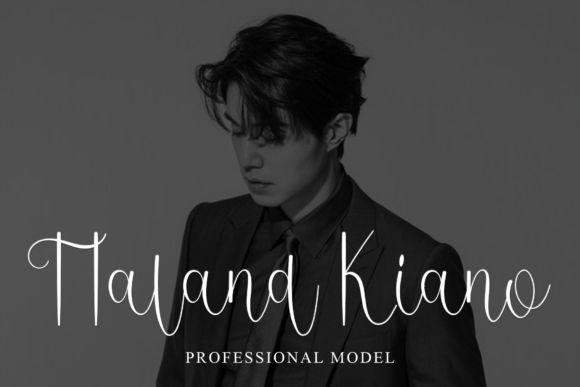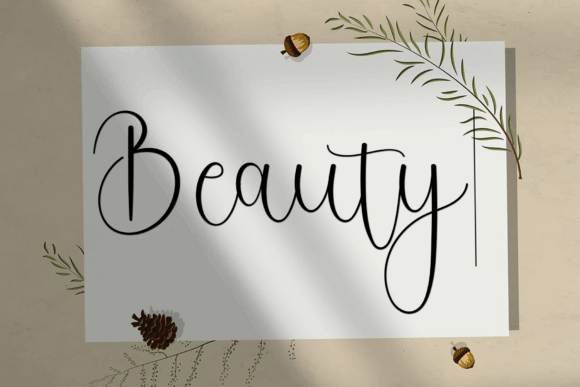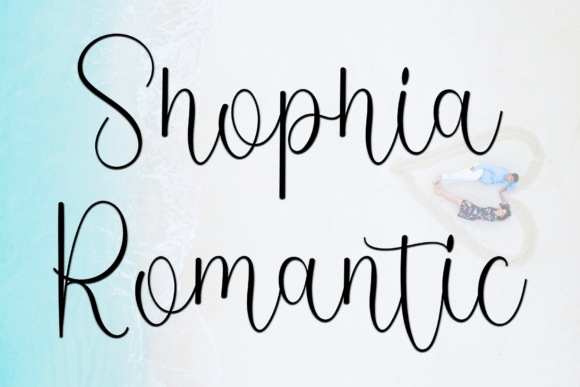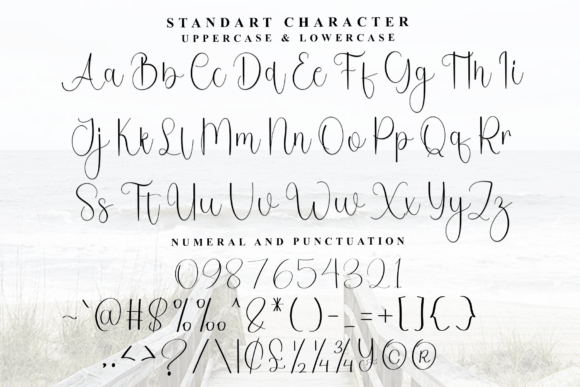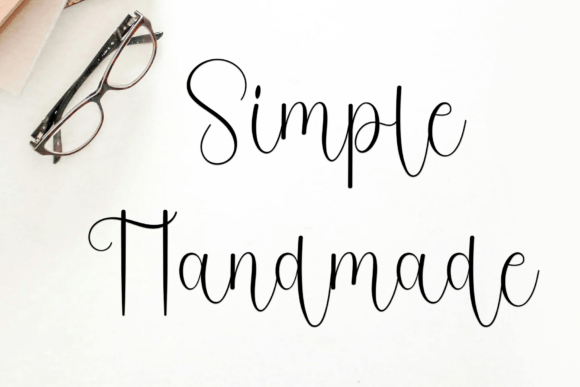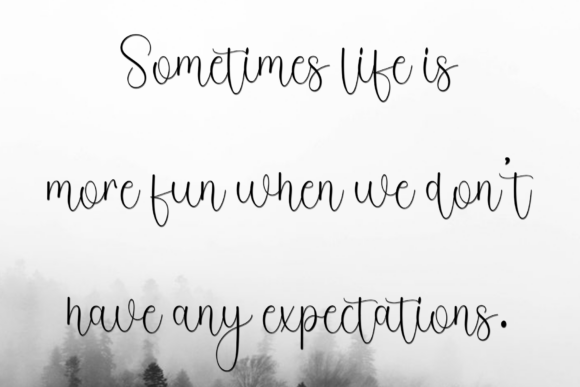
Unlock the Magic of Fantasy Birthday Font
As a designer, there’s no greater joy than bringing a creative vision to life. It’s that moment when you finally find the perfect font to match your idea – and it all comes together in perfect harmony. For those special occasions, you need a font that’s as unique as the celebration itself. That’s where the Fantasy Birthday Font comes in – a beautiful and eye-catching typeface that’s sure to make your designs stand out.
This charming font is designed to add a touch of whimsy and personality to your work, making it perfect for design projects, crafts, and other creative endeavors. With its soft, distinctive strokes, the Fantasy Birthday Font is versatile and meaningful, capable of enhancing a wide range of products and designs. Whether you’re a seasoned designer or just starting out, this natural font style is sure to become a valuable addition to your creative arsenal.
Fantasy Birthday Font Key Features
- Font Styles: This font includes a range of styles, including bold, regular, and italic, to suit various design needs.
- Unique Characteristics: Features intricate, fantasy-inspired designs with swashes and flourishes, adding a touch of magic to birthday messages and celebrations.
Review of Fantasy Birthday Font
I recently had the chance to work with the Fantasy Birthday Font, and I must say it’s a mixed bag.
- The font is perfect for creating a whimsical and magical atmosphere, which is great for birthday parties, especially for kids.
- The design is intricate and detailed, with beautiful flourishes and swashes that add a touch of elegance.
- The font is highly customizable, with a wide range of size and color options available.
- The font is quite ornate, which can make it difficult to read for some users, especially those with vision impairments.
- The design can be overwhelming if used excessively, so it’s best to use it sparingly to avoid visual clutter.
- The font may not be suitable for professional or formal applications, as it’s more geared towards casual and creative uses.
Overall, I think the Fantasy Birthday Font is a great choice for anyone looking to add a touch of magic to their designs. While it has some limitations, its unique design and customization options make it a valuable asset for any creative project.
Practical Application Guide: Fantasy Birthday Font
Experiment with different font sizes and styles to create a unique look.
Combine the Fantasy Birthday Font with other decorative fonts for a creative touch.
Use it for special occasions like birthdays, weddings, and holidays.
Birthday invitations and cards.
Wedding invitations and decorations.
Holiday cards and decorations.
Alternative Fantasy Birthday Fonts for Designers
Great Vibes Font is a modern, elegant script font that can be used to create a whimsical and magical feel. It’s perfect for designers who want to create a unique and eye-catching design without going over the top. Unlike Fantasy Birthday Font, which is more playful and childish, Great Vibes Font has a more sophisticated and refined look.
Carolyna Pro Font is a luxurious, handwritten font that can be used to add a touch of elegance and sophistication to any design. It’s ideal for designers who want to create a high-end and exclusive look. Compared to Fantasy Birthday Font, Carolyna Pro Font has a more refined and polished look, making it perfect for luxury brands and high-end designs.
Pacifico Font is a beautiful, elegant script font that can be used to create a relaxed and beachy vibe. It’s perfect for designers who want to create a fun and casual design without sacrificing style. Unlike Fantasy Birthday Font, which is more playful and energetic, Pacifico Font has a more laid-back and effortless look.
Playfair Display Font is a luxurious, elegant serif font that can be used to create a sophisticated and high-end look. It’s ideal for designers who want to create a classic and timeless design without going over the top. Compared to Fantasy Birthday Font, Playfair Display Font has a more refined and polished look, making it perfect for luxury brands and high-end designs.